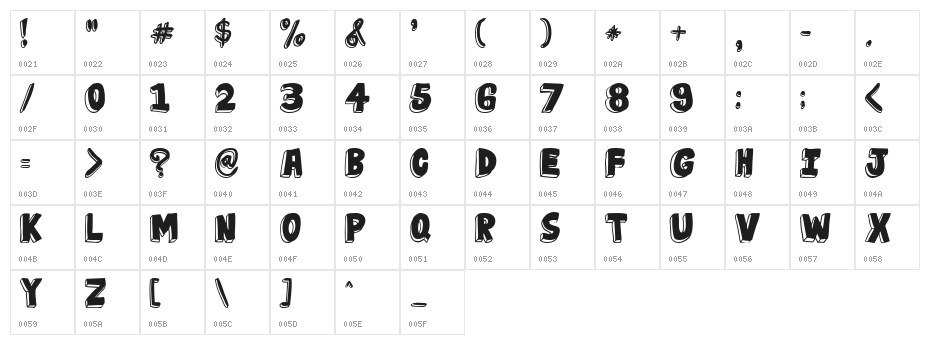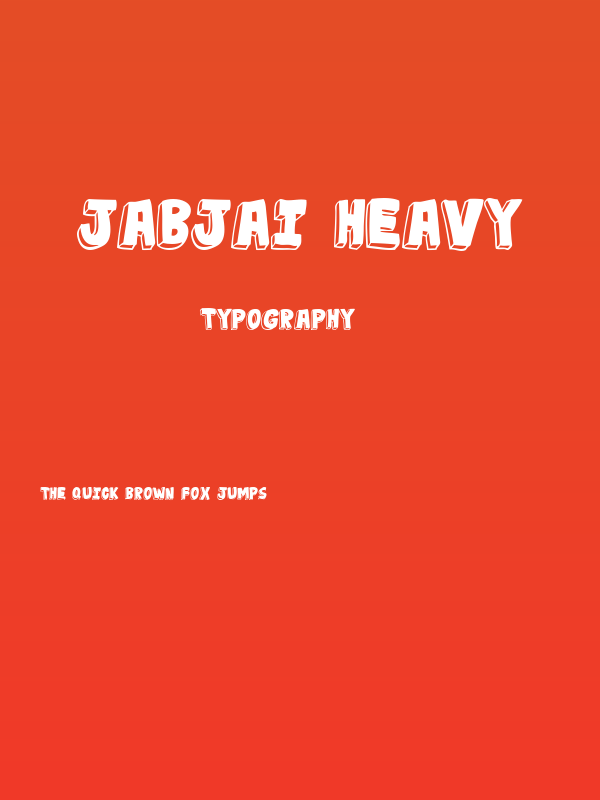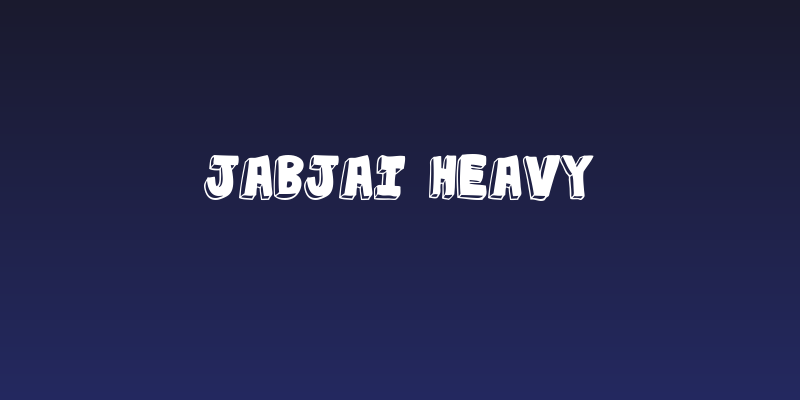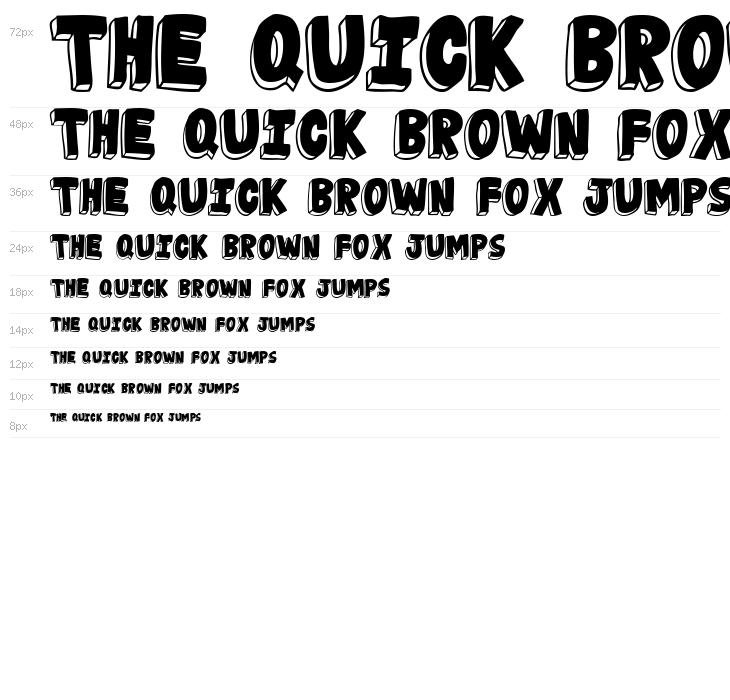
jabjai Heavy Font
jabjai Heavy Description
This bold and playful font features a three-dimensional, shadowed effect that gives it a dynamic and eye-catching appearance. The characters are thick and rounded, with a strong presence that makes them stand out. The shadowing adds depth, creating a sense of movement and energy. The font is highly legible, with each letter distinctly formed, making it suitable for various creative applications. Its unique style is both fun and engaging, ideal for projects that require a lively and vibrant touch.